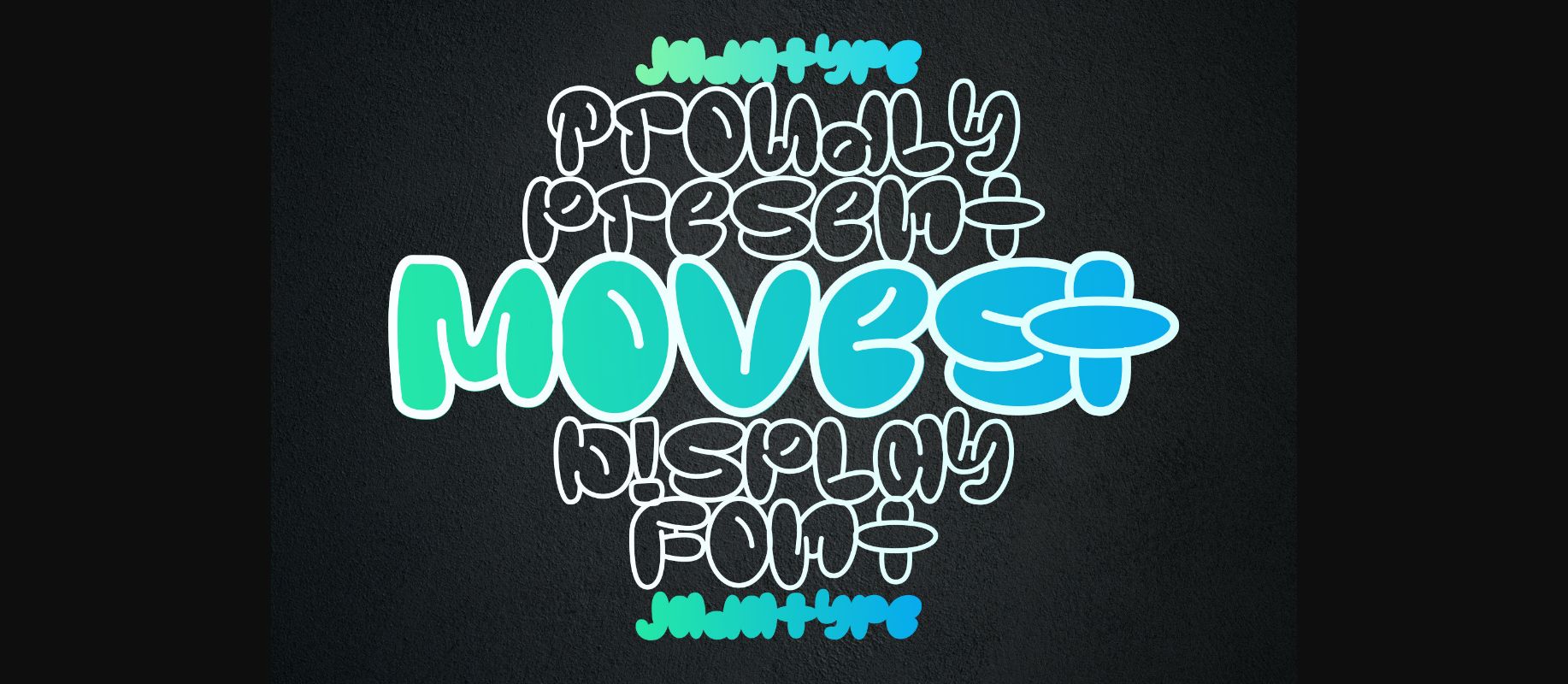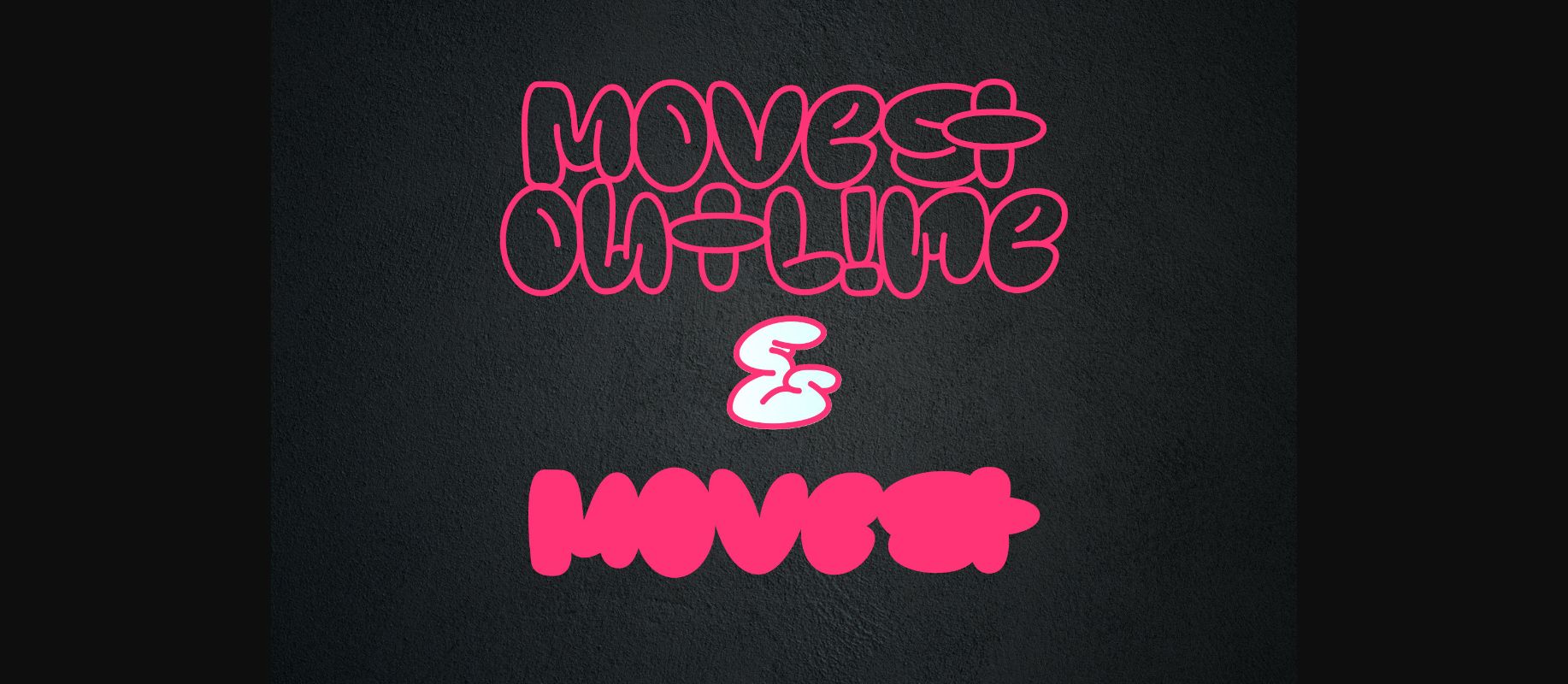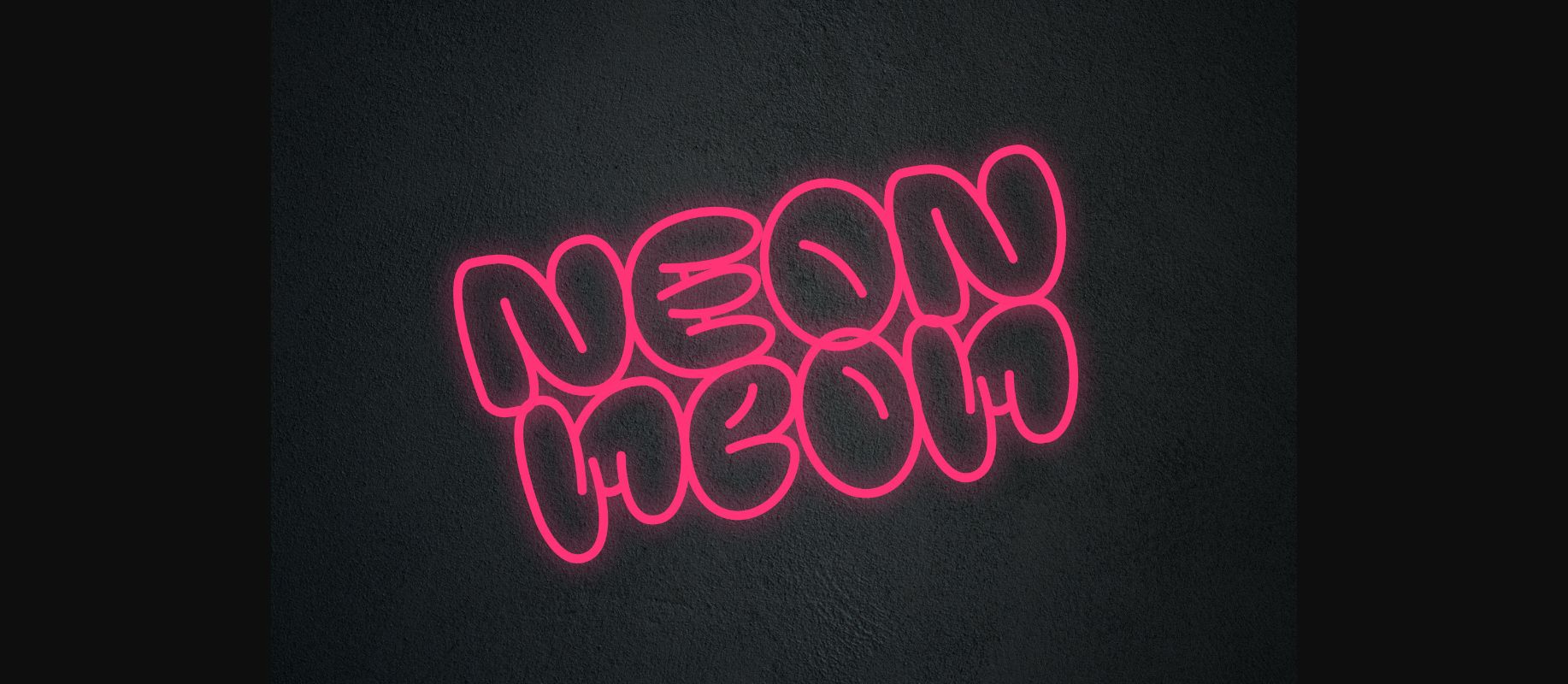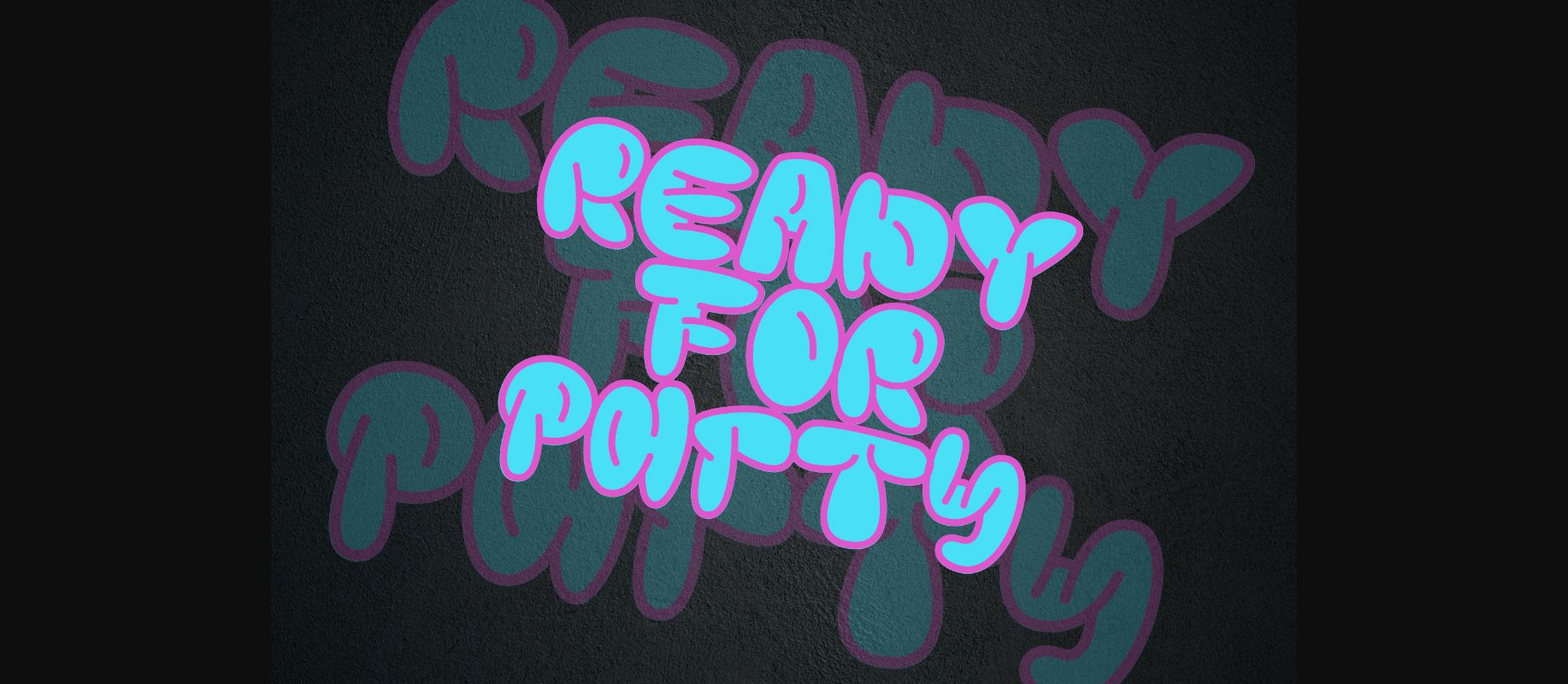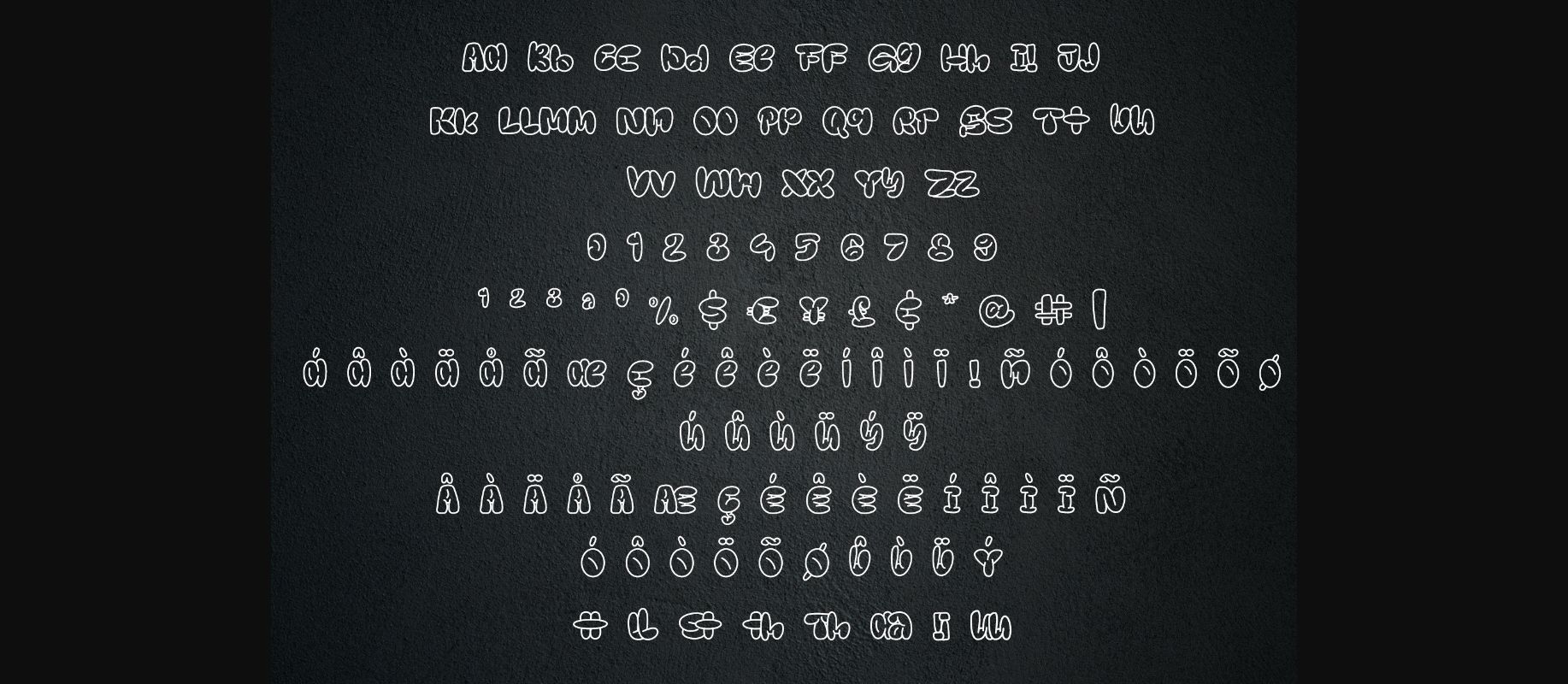
Movest Font
About Movest Font
Movest is a display font that has a bubble style with fun graffiti’s vibe. suitable for poster, branding, social media, products, advertisements, and so much more.